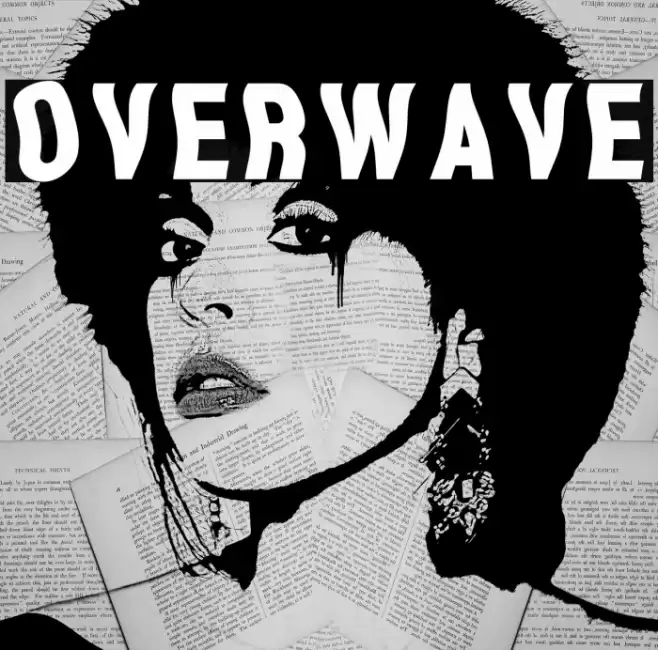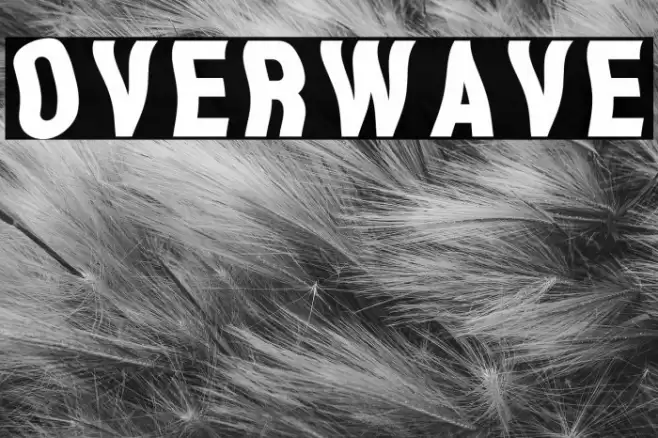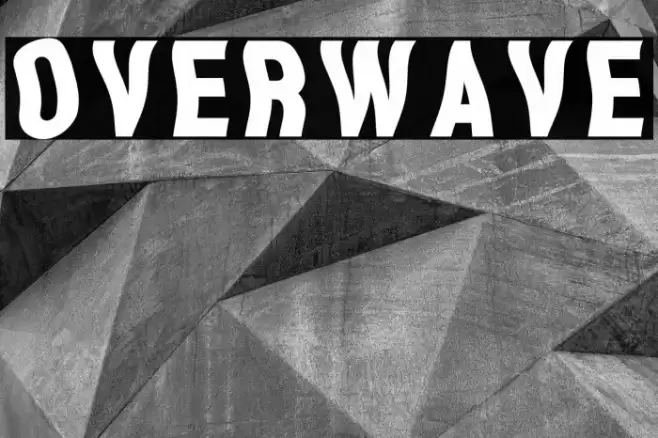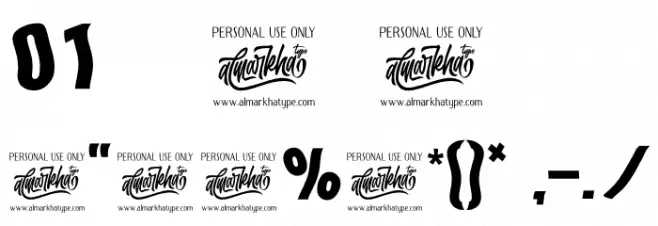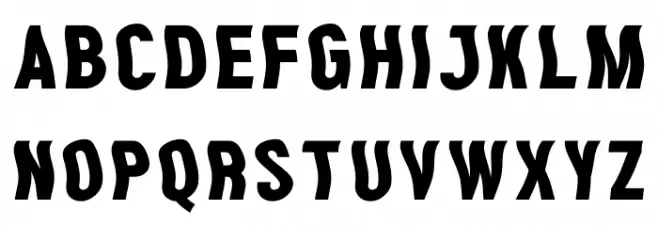
Overwave Font
Overwave Description
This font features a bold and dynamic style with a strong presence. The characters are slightly condensed, giving it a compact appearance. The strokes are thick and consistent, providing a uniform look across all letters. The uppercase letters are particularly striking, with a slight slant that adds a sense of movement and energy. The numbers and special characters maintain the same boldness, ensuring consistency throughout. This font is ideal for making a statement and capturing attention.
A bold, dynamic font with a slightly condensed and energetic style from Distorted Eroded fonts.
- Proposed Projects: Ideal for posters, headlines, branding, and any project that requires a strong visual impact.
- Width: Condensed